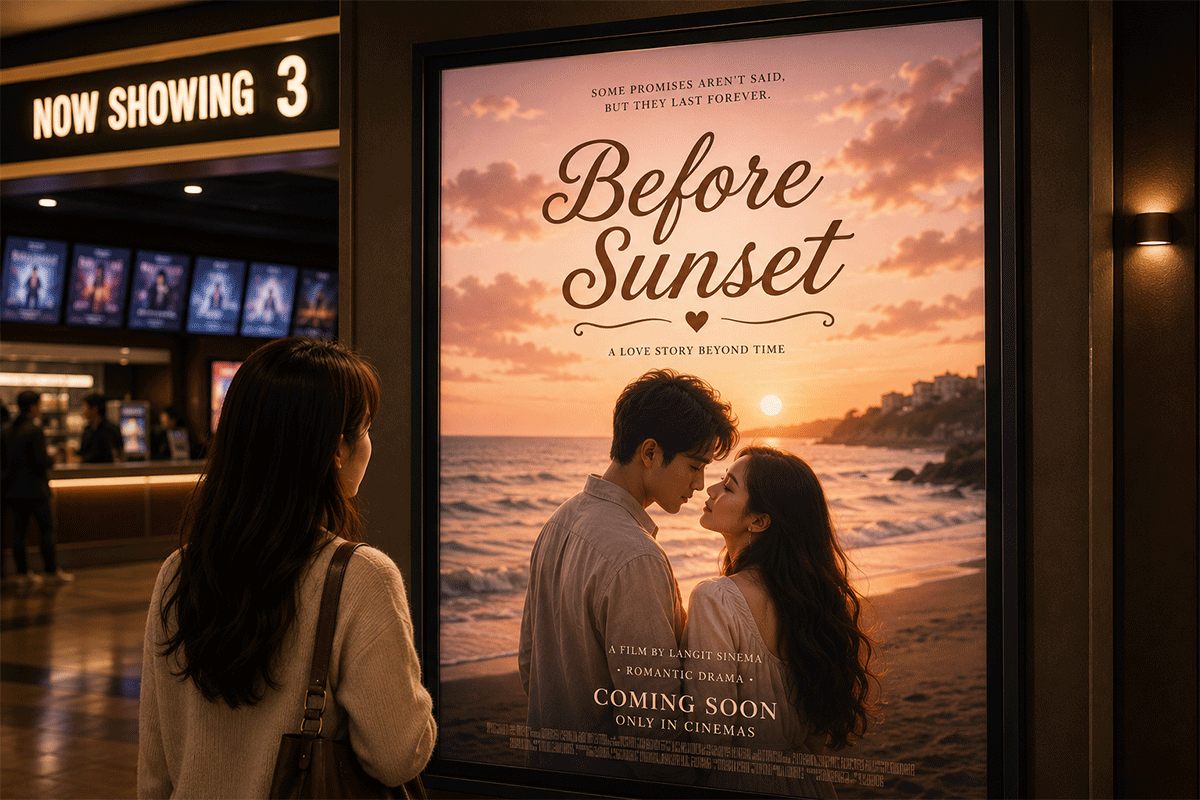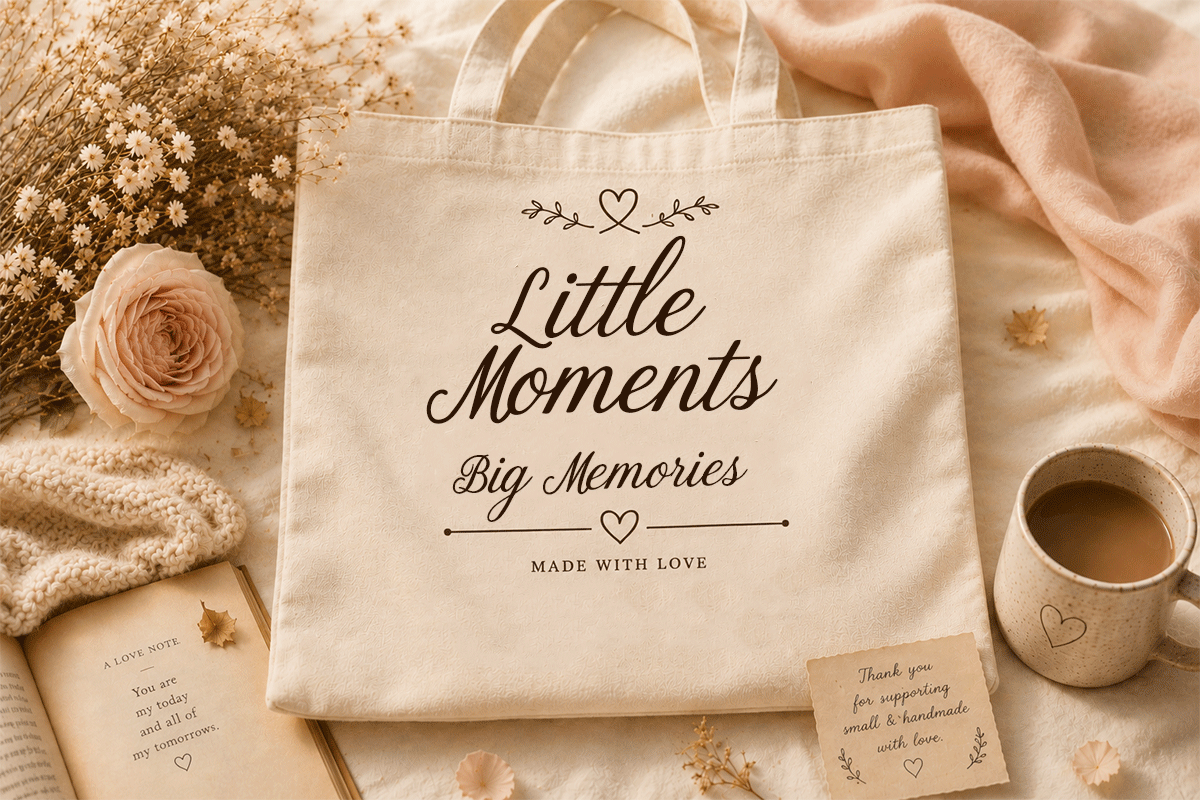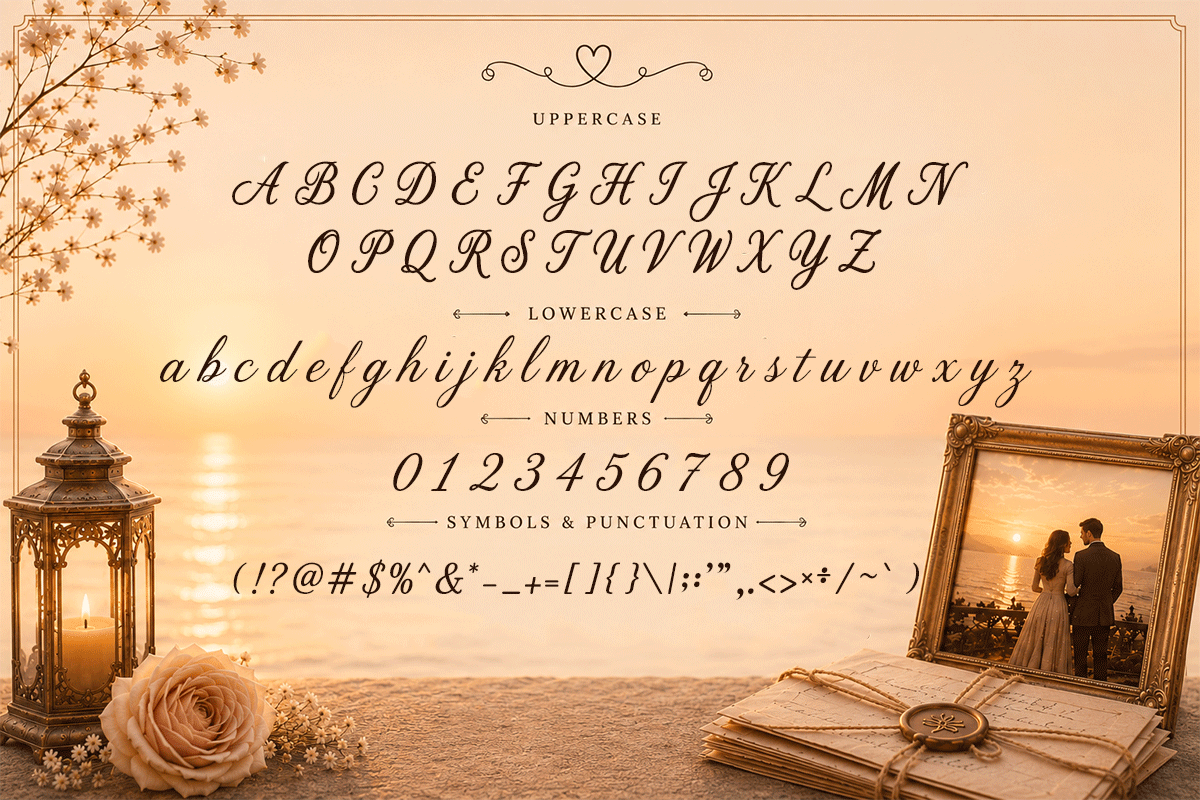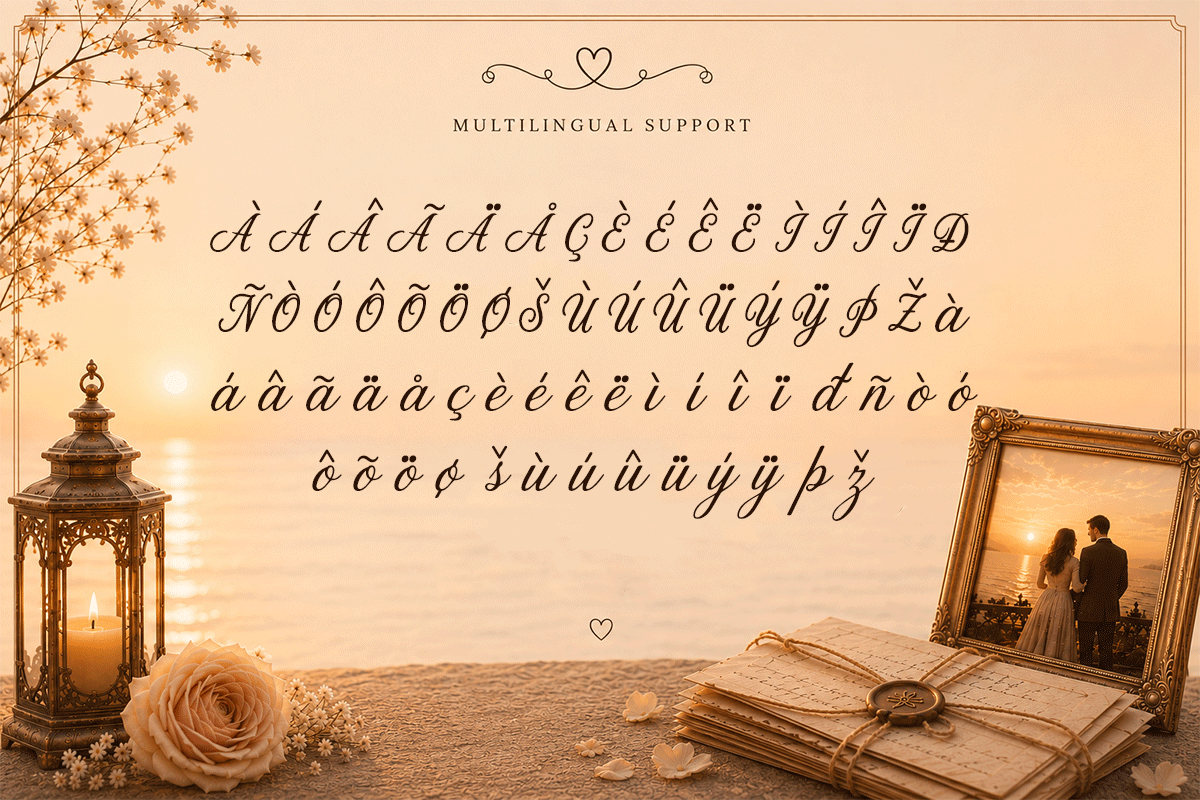
Evermore Lane A Modern Elegant Script Font is a romantic script font with a soft, elegant, and timeless personality. Its graceful flowing strokes and delicate curves create the feeling of beautifully handwritten love letters, bringing warmth and intimacy to every word.
With its natural rhythm, expressive swashes, and sophisticated letterforms, Evermore Lane A Modern Elegant Script Font blends classic romance with modern elegance. It feels personal, refined, and effortlessly luxurious—perfect for designs that need an emotional and memorable touch.
Evermore Lane A Modern Elegant Script Font is ideal for wedding invitations, logos, branding, photography, greeting cards, quotes, packaging, editorial designs, social media content, and romantic lifestyle projects.
Inspired by timeless love stories, handwritten letters, and warm golden sunsets, Evermore Lane A Modern Elegant Script Font is more than a typeface—it turns every word into a beautiful story.